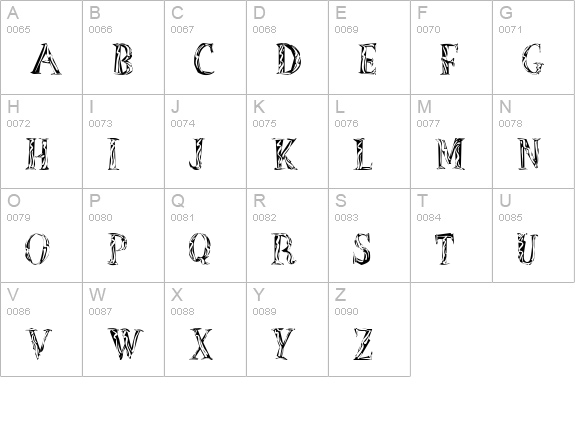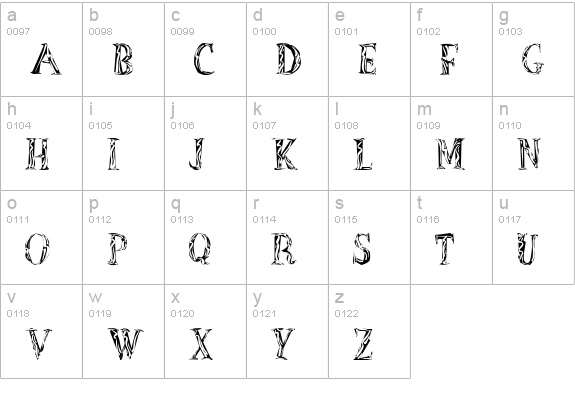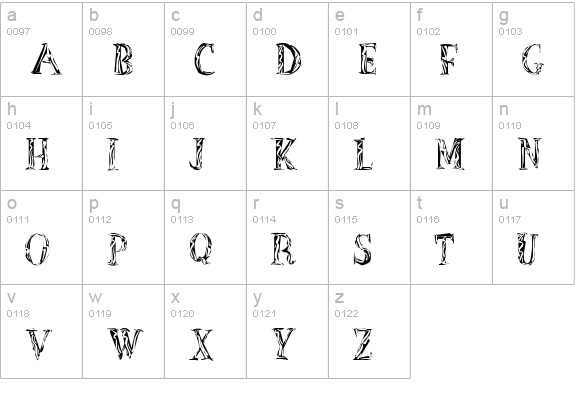
OutOfAfrica Font Details
OutOfAfrica font is a stunning and elegant typeface that captures the essence of the African continent. With its bold and unique design, this font is perfect for creating eye-catching headlines, posters, and branding materials. The intricate details and organic shapes of OutOfAfrica font evoke a sense of adventure and mystery, making it a versatile choice for a wide range of design projects. The best part is that OutOfAfrica font is completely free to download at FontsMarket.com. You can easily add this beautiful font to your collection and start using it in your designs right away. Whether you're working on a personal project or a professional assignment, OutOfAfrica font is sure to make a bold statement and leave a lasting impression. Download it now and let your creativity soar with this captivating typeface.